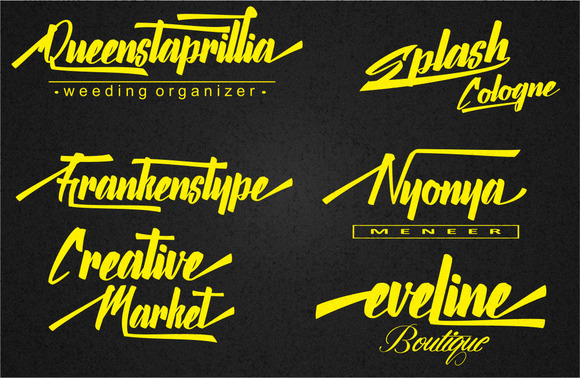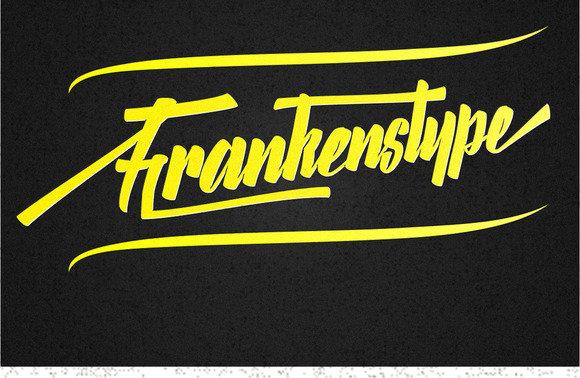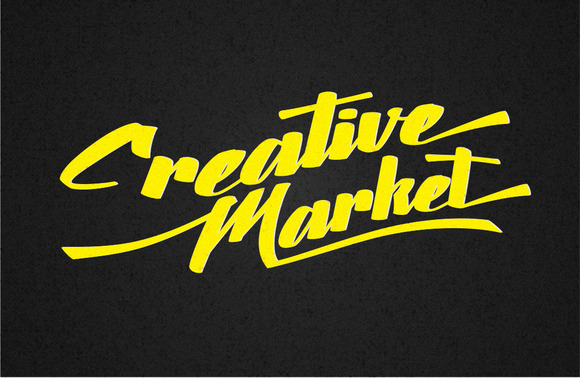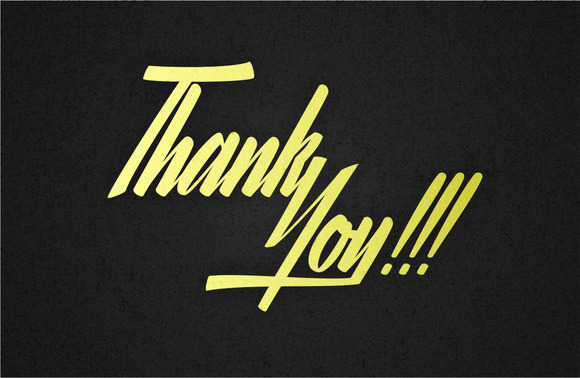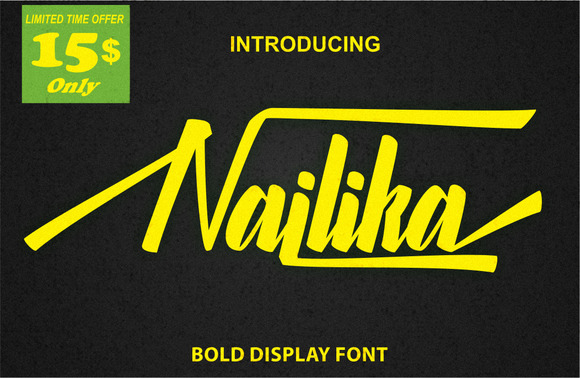
Nailika Display
Nailika Display Font
Hello friends!! say hello to Nailika !! A bold and beautifull brushfont that will helps you to finish your design projects. Opentype features also available in Nailika , there are 2-6 alternative characters for each single letter, so you can explore your imagination with Nailika .